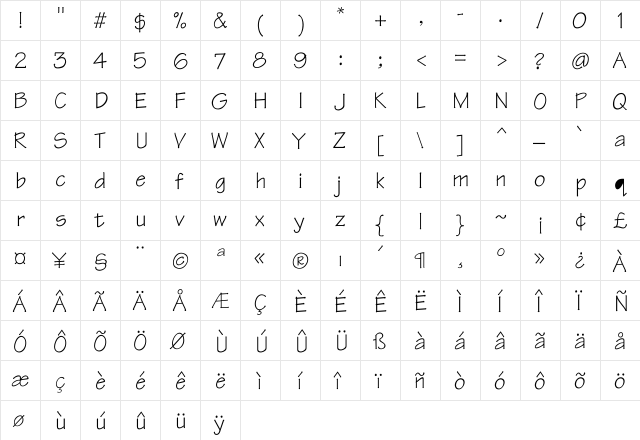
FunTek Regular
Design Context for FunTek Typeface
FunTek trades formality for fun, with bouncy, characterful letterforms that bring warmth and energy to any project.
Font Pairing: Pairs well with a rounded or humanist sans for body copy, maintaining the friendly tone without relying on FunTek to carry extended reading.
Pro Tip: Use FunTek at larger display sizes where its expressive character can land. Pair with a clean, simple sans for body copy to maintain readability.